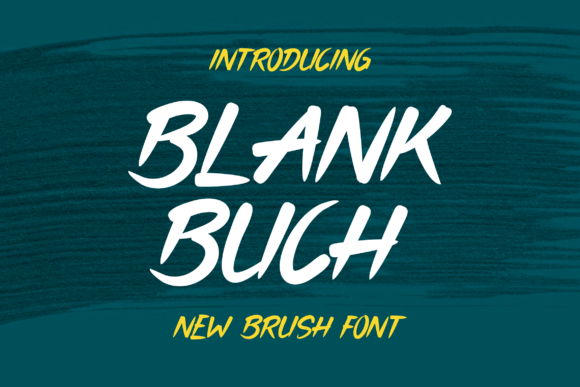
The BlankBuch Font: A Contemporary Twist on Handmade Design
I’ll never forget the time I was working on a project for a client who wanted a unique, handmade look for their branding. I spent hours scouring the internet for the perfect font, but nothing seemed quite right. That was until I stumbled upon the BlankBuch font. With its irregular baseline and natural, brush-like strokes, it was exactly what I needed to give my design a personal touch.
An Honest Review of BlankBuch
So, what makes BlankBuch so special? Let’s dive in and take a closer look.
- ✨ Unique, handmade aesthetic that’s perfect for adding a personal touch to designs
- ✅ Irregular baseline that gives text a natural, organic feel
- 💫 Supports OpenType features, including glyphs and stylistic alternates
- 🎨 Highly versatile and suitable for use in a wide range of design projects
- 🤔 May not be suitable for body text due to its bold, attention-grabbing nature
- ⚠️ Some characters may appear a bit inconsistent due to the handmade nature of the font
The Story Behind BlankBuch
BlankBuch was designed with the intention of creating a font that looked like it was written with a brush. The designer wanted to capture the natural, handmade feel of traditional brush lettering and make it accessible to designers and crafters alike.
| Font Name | Blank Buch Font |
| Author | cozzdesign |
| What is BlankBuch font best used for? | BlankBuch font is best used for title design, such as apparel, invitations, book titles, stationery designs, quotes, branding, logos, greeting cards, t-shirts, packaging designs, posters, and more. |
| Does BlankBuch support OpenType features? | Yes, BlankBuch supports OpenType features, including glyphs and stylistic alternates. |